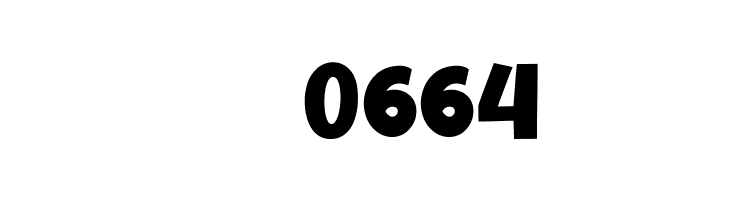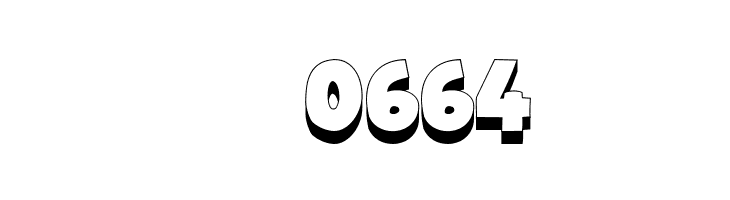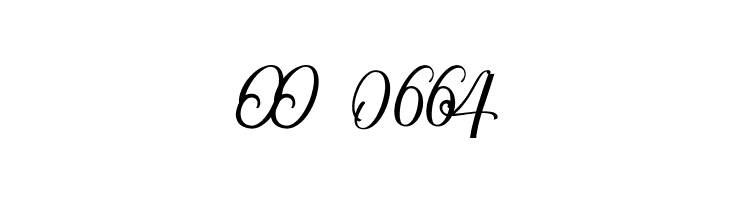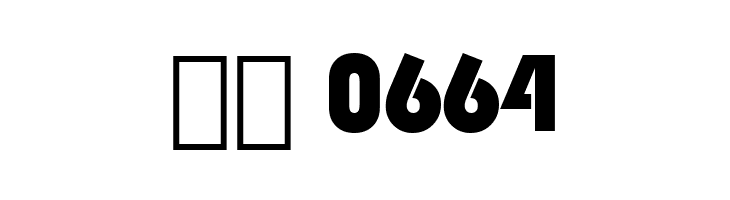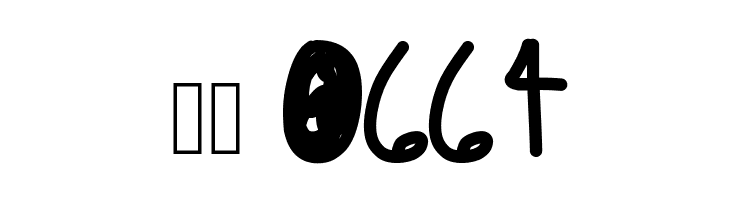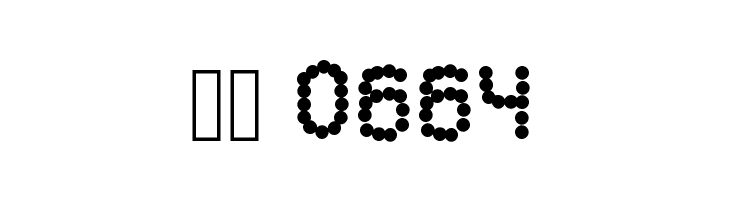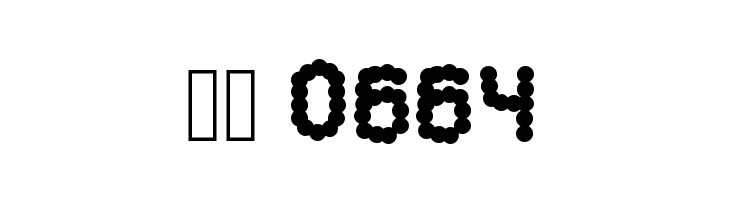
A bold, playful font with a cartoonish and informal style.
A bold, textured script font with a vintage, handcrafted feel.
A playful, hand-drawn font with a whimsical and bold style.
A geometric, octagonal font with a modern and industrial style.
An elegant and sophisticated script font with flowing, connected characters.
A modern, geometric sans-serif font with smooth, rounded edges.
Expressive, high-contrast handwritten script with ornate uppercase and bold lowercase.
A graceful, italic script font with a handwritten, calligraphic feel.
A playful, handwritten-style font with flowing, cursive-like strokes.
An elegant, flowing script font with a natural handwritten style.
Elegant handwritten script font.
A playful, bold handwritten font with smooth curves and rounded edges.
A dotted, pixelated font with a modern and playful aesthetic.
A playful, dot-based font with a bubbly and textured appearance.
A playful, bubbly font with rounded, interconnected shapes and a bold, uniform appearance.
A playful, whimsical handwritten font with flowing, cursive-like strokes.
A bold, rounded font with a playful 3D shadow effect.
Bold, framed uppercase letters with a retro, playful style.
Bold, uppercase letters in rounded squares with a modern, striking design.
A classic serif typeface with elegant, sharp serifs and a refined design.
An elegant script font with flowing, decorative letterforms and intricate flourishes.
A casual handwritten font with a lively and dynamic style.
A bold, 3D block-style font with strong shadow effects.
A bold, playful font with thick, rounded characters and a whimsical style.
A bold, playful font with rounded characters and a whimsical style.
A bold, textured brushstroke font with an energetic and chaotic style.
A bold, angular font with a dynamic and geometric style.
A bold, angular font with geometric shapes and dynamic style.
A bold, 3D italic font with a dynamic and impactful design.
A bold, 3D geometric font with a striking, blocky appearance.
A bold, angular, and condensed font ideal for impactful headlines.
A bold, condensed, and italicized font with a dynamic, modern style.